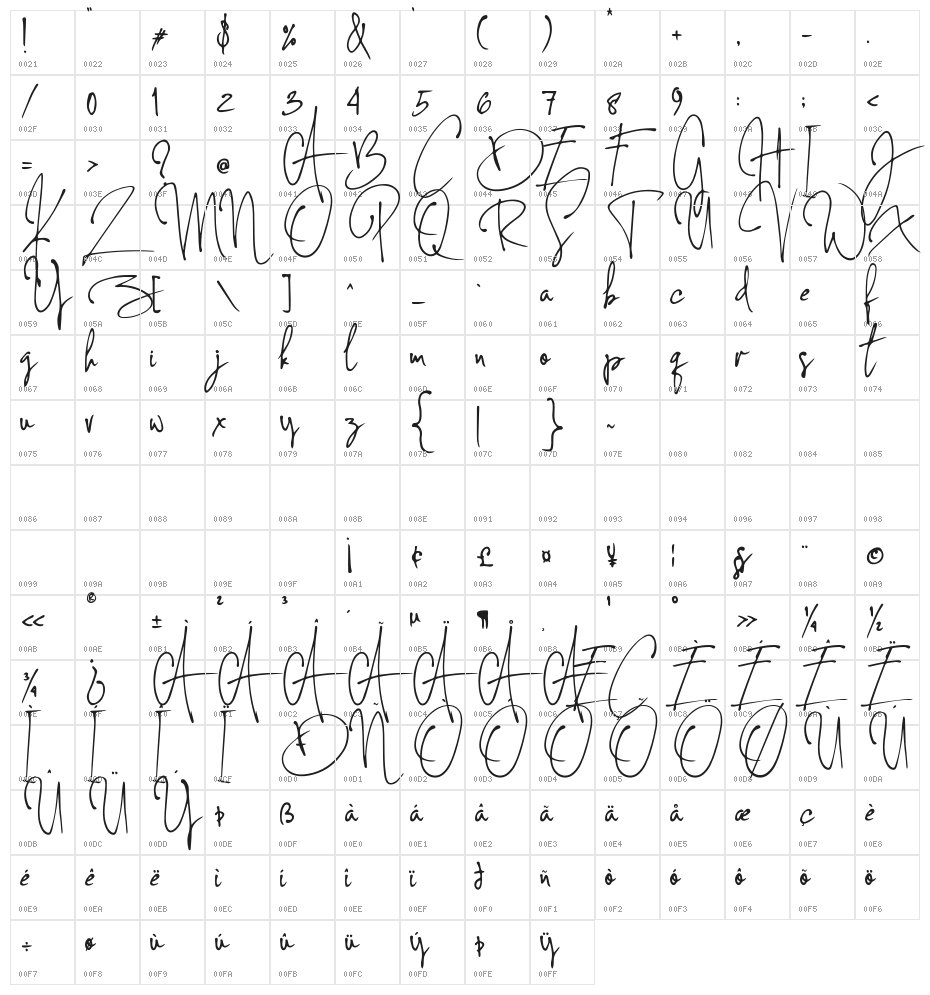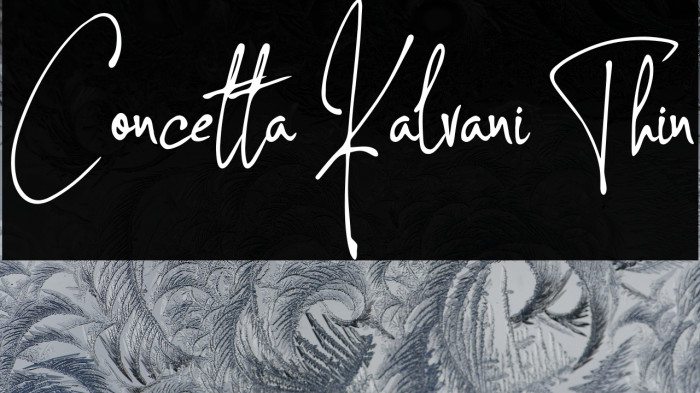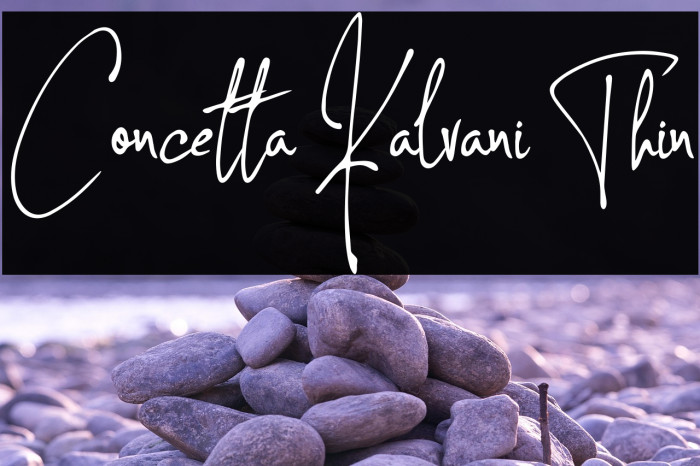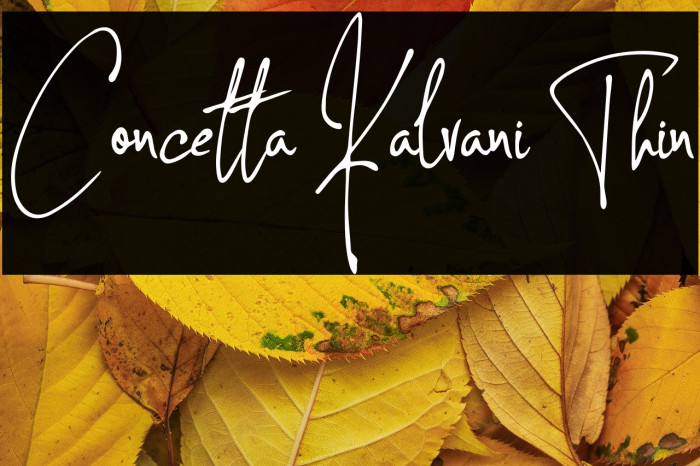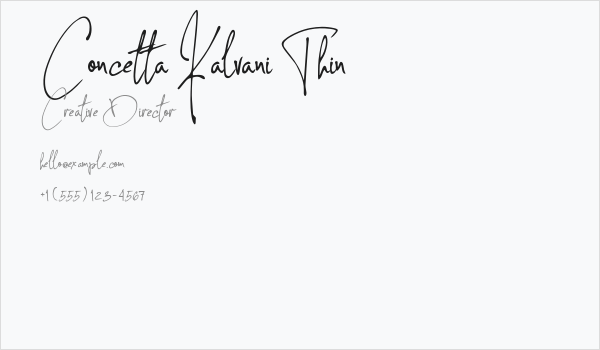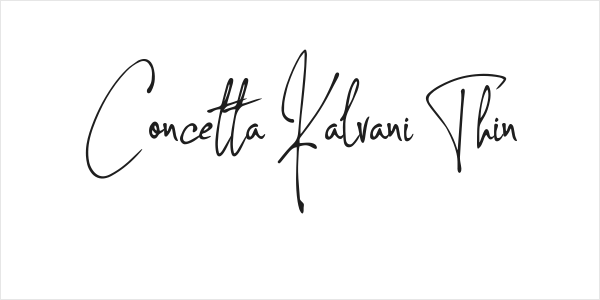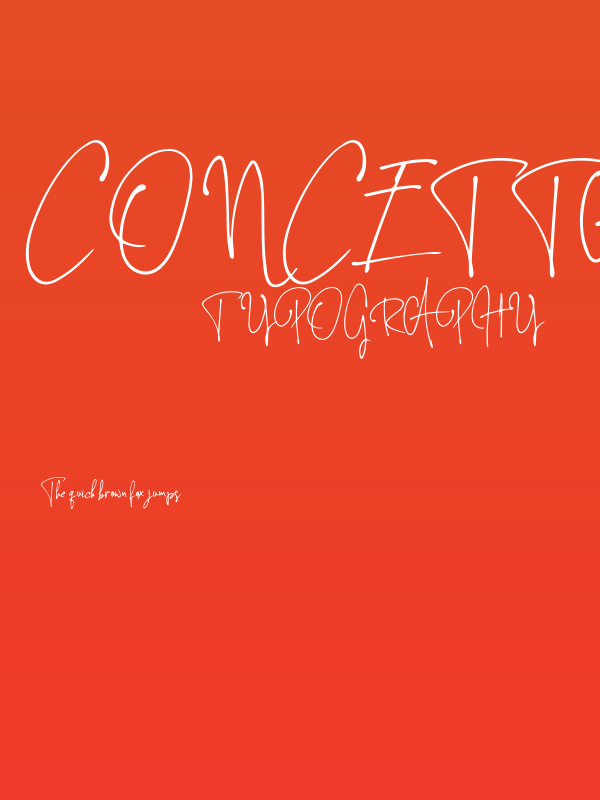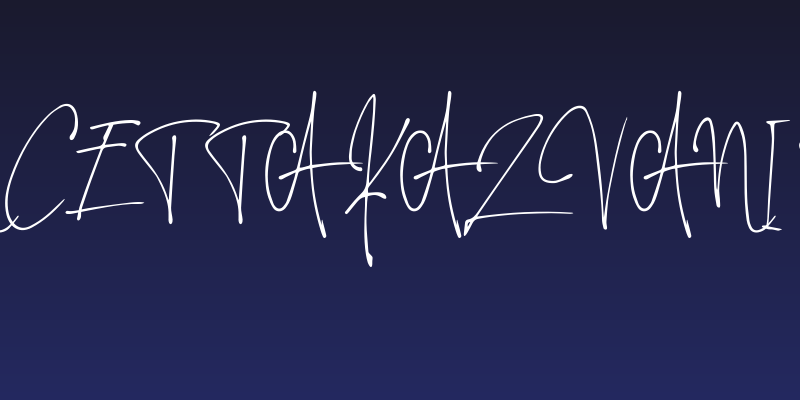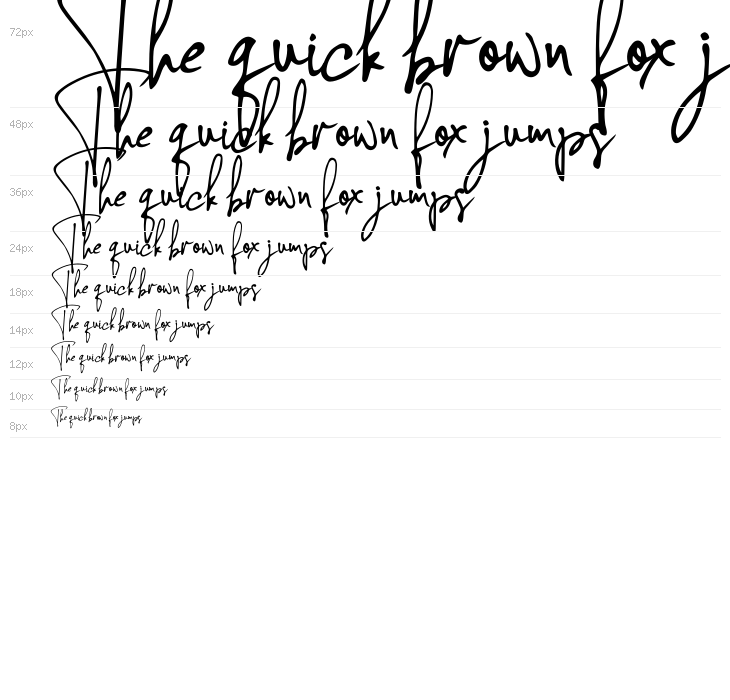
Concetta Kalvani Thin Font
Concetta Kalvani Thin Description
This font features a distinctive handwritten style with an elegant, flowing script. The uppercase letters are tall and slender, with a slight slant that adds a sense of movement and grace. The lowercase letters are more compact but maintain the same fluidity, creating a cohesive look. Numbers and special characters are consistent with the overall style, offering a playful yet sophisticated appearance. The thin strokes and varying line thicknesses give it a dynamic and lively feel, making it suitable for creative and artistic projects.
| Proposed Projects | Ideal for wedding invitations, personal branding, artistic posters, and creative logos. |